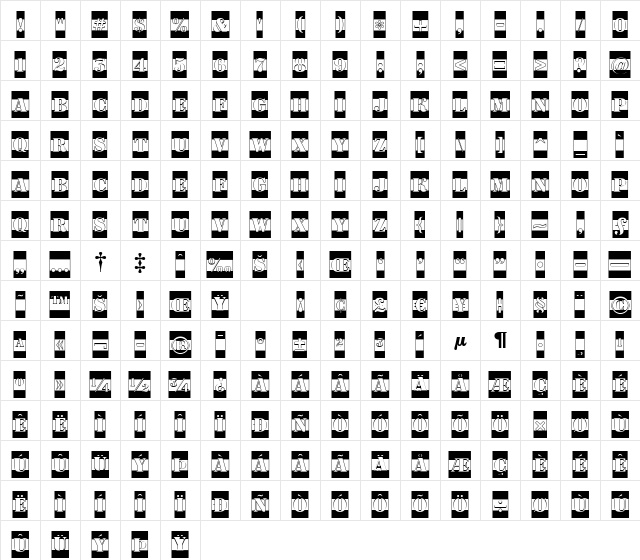
a_DodgerCmB&W Regular Free Font
a_DodgerCmB&W Regular
Designer: W.Chufarofsky & M.Slutsker
Design Context for a_DodgerCmB&W
a_DodgerCmB&W is a composed and adaptable typeface that performs quietly and consistently across a wide range of design contexts.